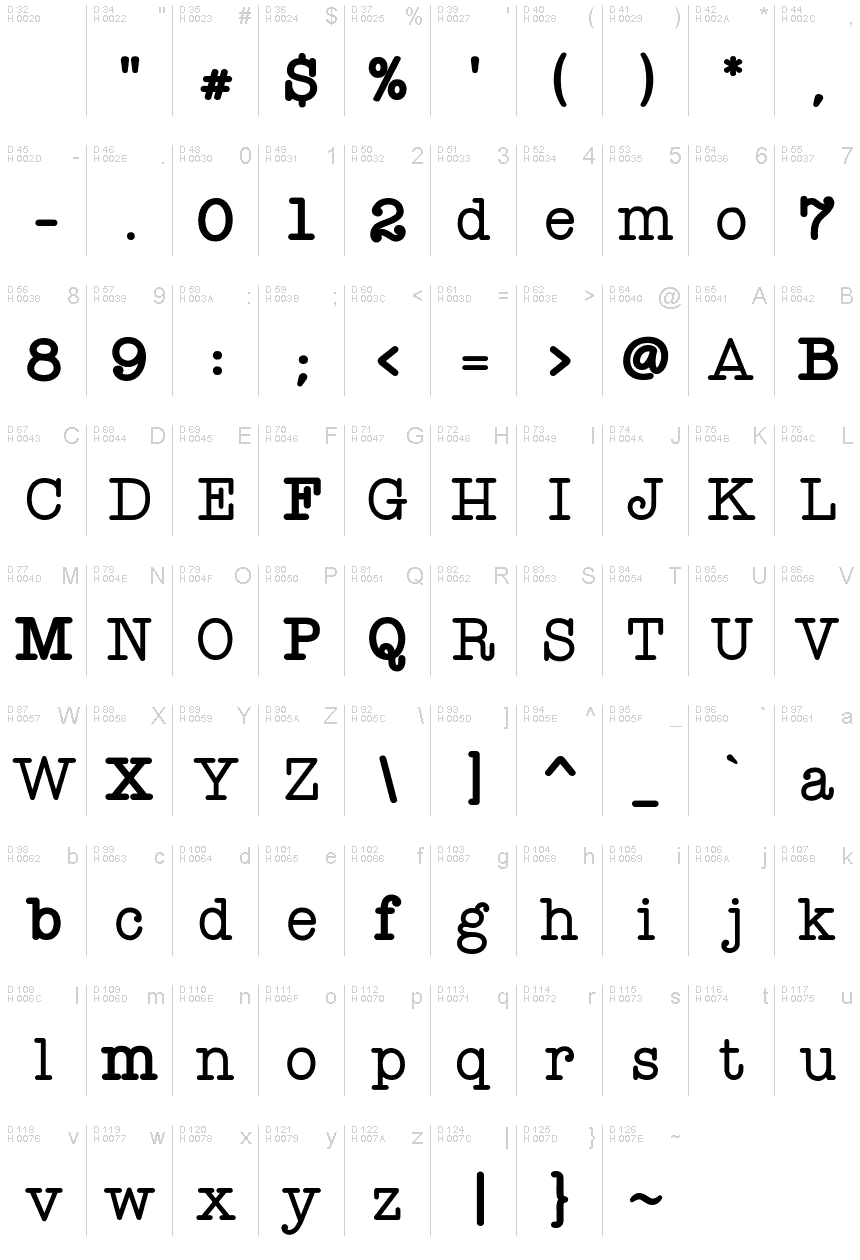
Ketikan_Demo
Ketikan, the brainchild of Almaz Studio, is a stunning display font that combines the classic feel of a typewriter with the boldness of a slab serif. The semi-light weight adds to its elegant charm while making it easily readable. Perfect for any project that needs a touch of vintage flair, Ketikan would be great for creating posters, flyers, and book covers. Its unique style also makes it an excellent choice for branding and logo design. With Ketikan in your arsenal, you'll have no trouble standing out from the crowd and making a lasting impression on your audience!
Ketikan font creative and unique alternative solid typewriter font. The perfect font when looking for that authentic and original typewriter feel to your designs.